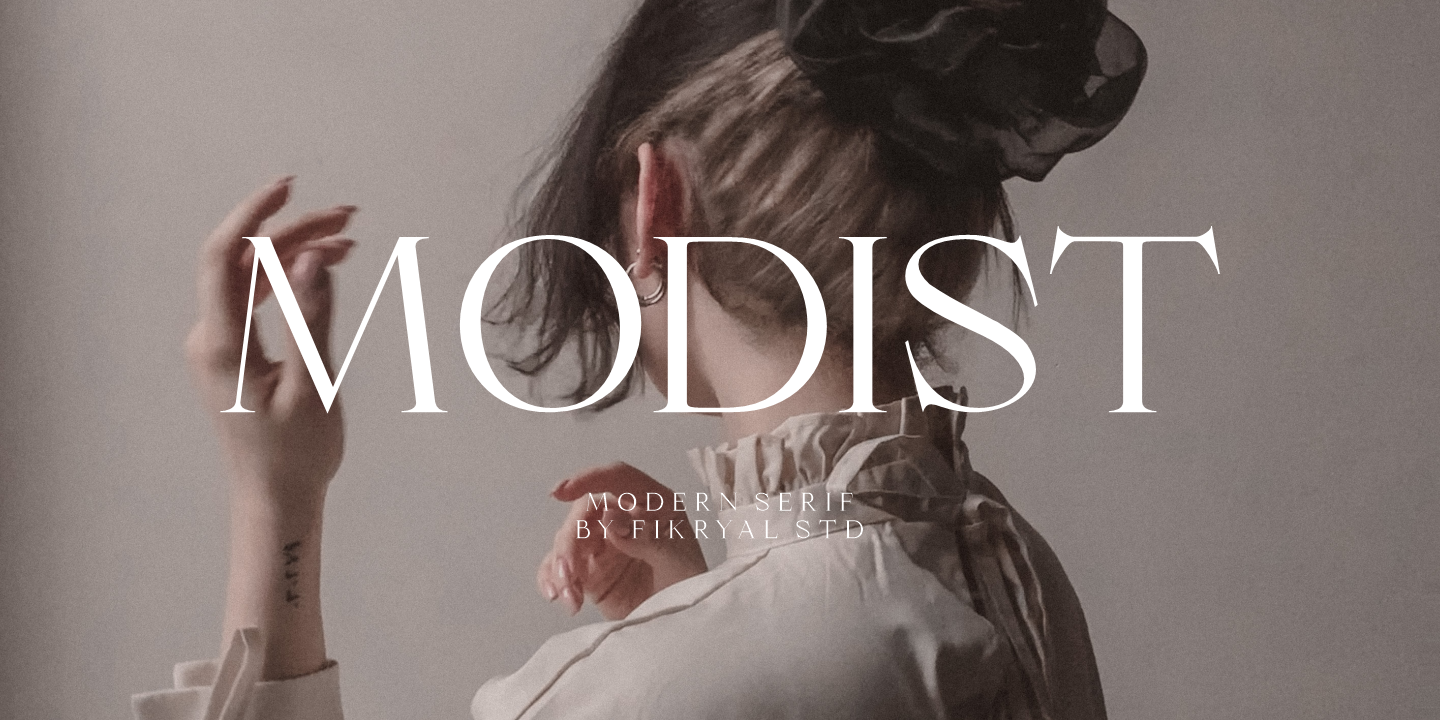
Modist Font is perfect for modest fashion branding, understated elegance campaigns, minimalist lifestyle marketing, refined conservative clothing, tasteful beauty packaging, subtle luxury communications, dignified professional services, graceful hospitality branding, unpretentious quality products, and sophisticated restraint advertising.
What makes Modist Font exciting is its humble sophistication that perfectly captures the understated elegance and refined modesty found in tasteful design and genuine quality without ostentation. This typeface features restrained letterforms with modest proportions and refined details that convey dignity, authenticity, and the quiet confidence that comes from genuine quality and understated excellence. The font's dignified personality and modest authenticity make it ideal for brands seeking to convey sincerity, quality, and the refined taste that comes from genuine substance over flashy presentation.
Modist Font family includes refined weight variations and understated alternatives that enhance its modest appeal while providing design flexibility for sophisticated and conservative applications. The font features tasteful ligatures, refined ornaments, and dignified character variations that create authentic understated atmosphere for quality-focused and refined branding.
Quality-focused companies and refined lifestyle brands consistently choose Modist Font Free Download for projects requiring authentic modest appeal and sophisticated credibility. The font's dignified character excels in applications targeting discerning consumers who appreciate genuine quality and understated elegance over flashy presentation. Whether you're designing for modest fashion, quality services, or refined lifestyle products, this tasteful typeface delivers the modest authenticity and refined dignity that resonates with audiences seeking genuine quality and the quiet confidence that defines understated elegance and modest sophistication in contemporary design and lifestyle excellence.